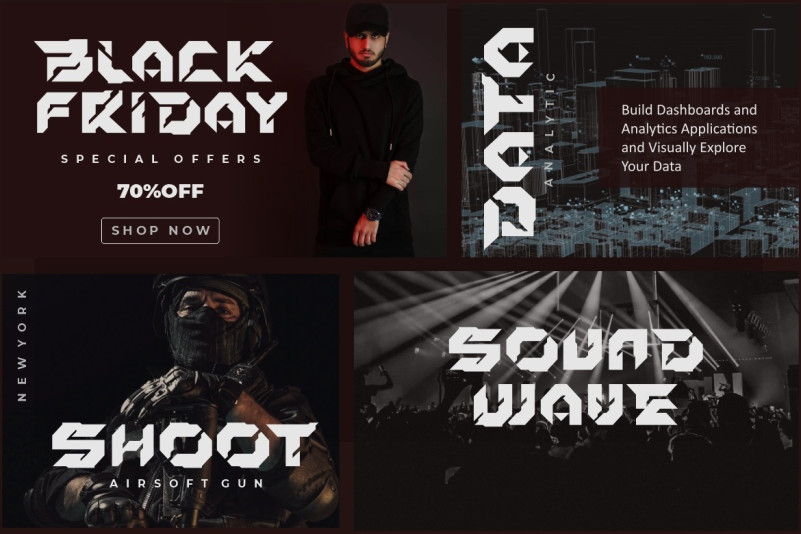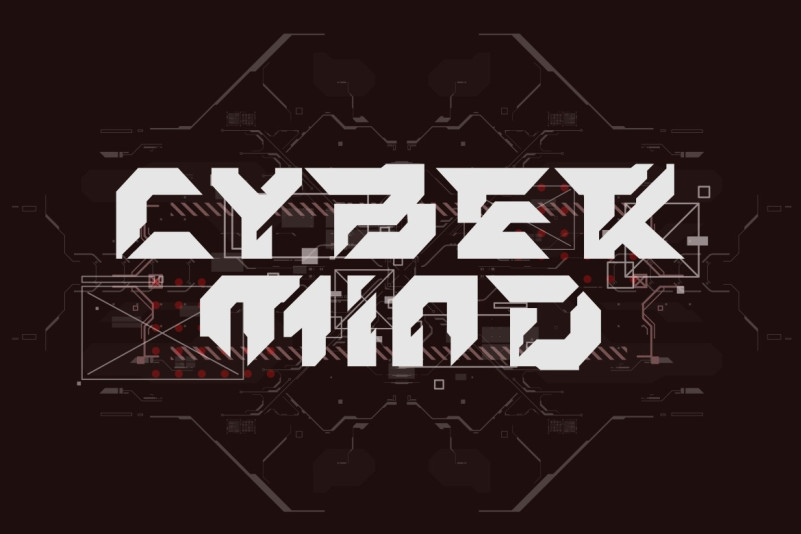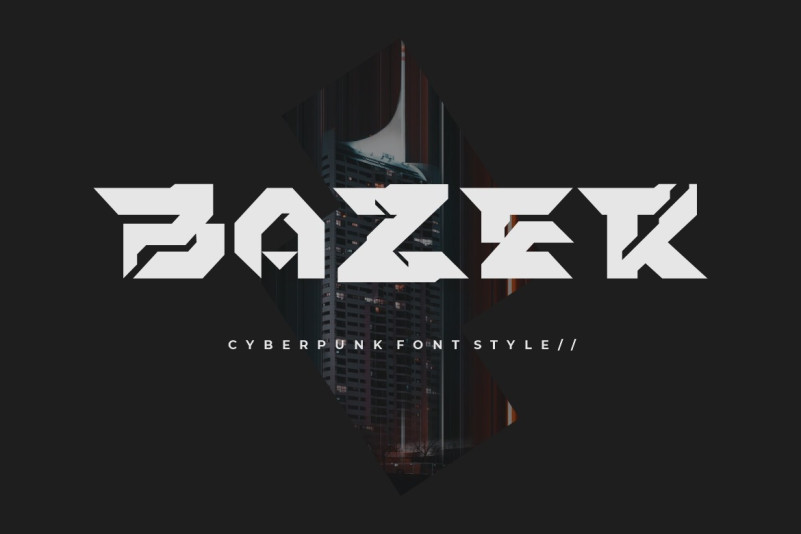
Bazer Font
BAZER Display Font is a display font typeface with all caps that will make your design looks hi-tech, modern and cyberpunk feel. You can use this font for any purpose, especially to make logotype or posters.\